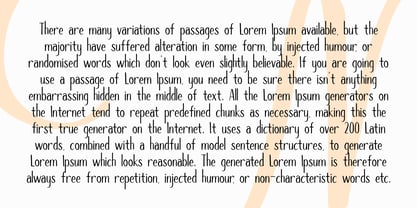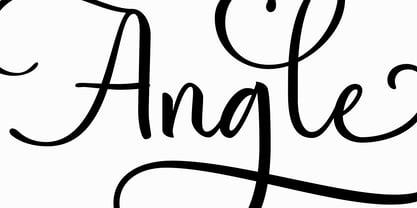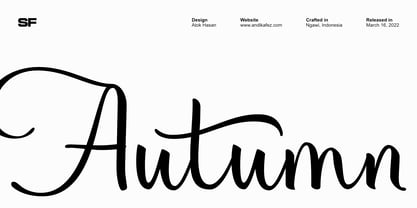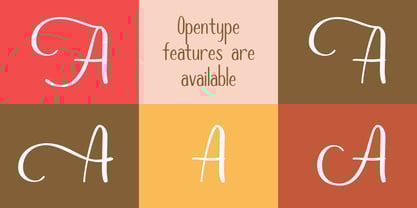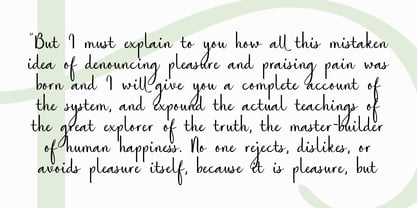
Autumn Mood
by Studio Fat Cat
The Autumn Mood Font Family was designed by Atok Khoirudin and published by Studio Fat Cat. Autumn Mood contains 2 styles and family package options. More about this family
Autumn Mood is a charming handwritten font duo featuring two complementary styles: a flowing script and a clean sans. Perfect for cozy branding, invitations, quotes, and seasonal designs, this pair brings warmth and personality to any project. The script adds a natural, hand-lettered touch, while the sans offers a soft, minimalist balance—together creating a beautifully harmonious feel.